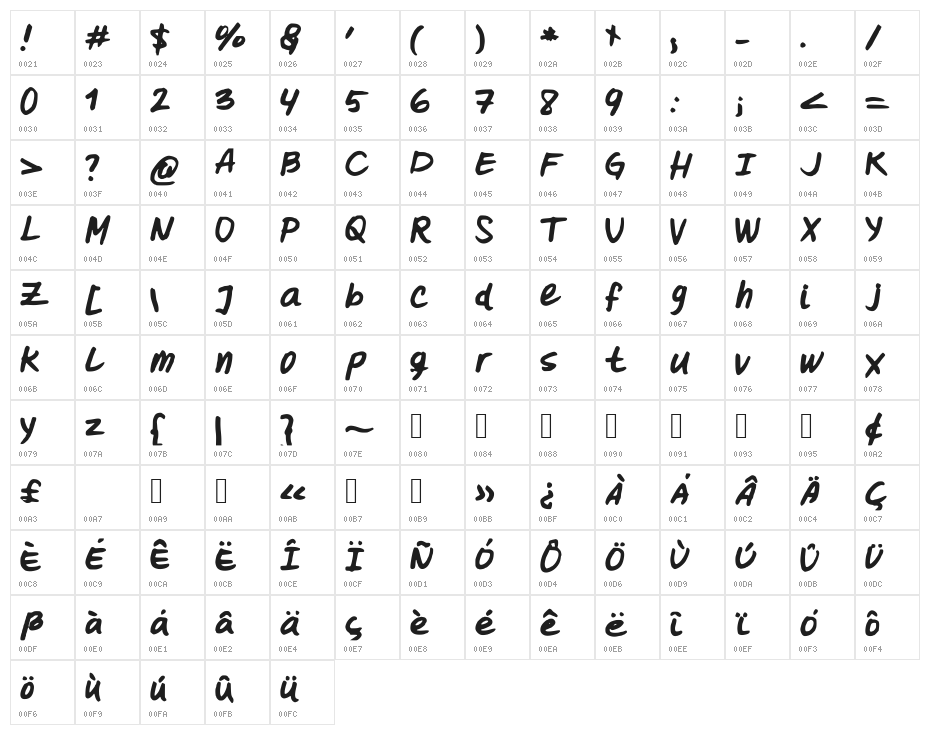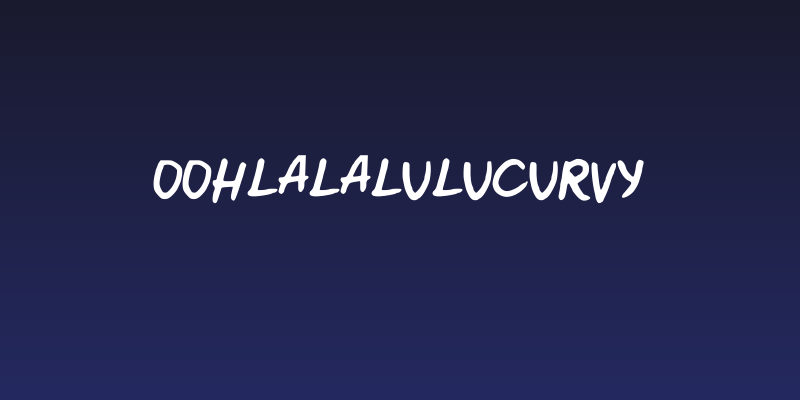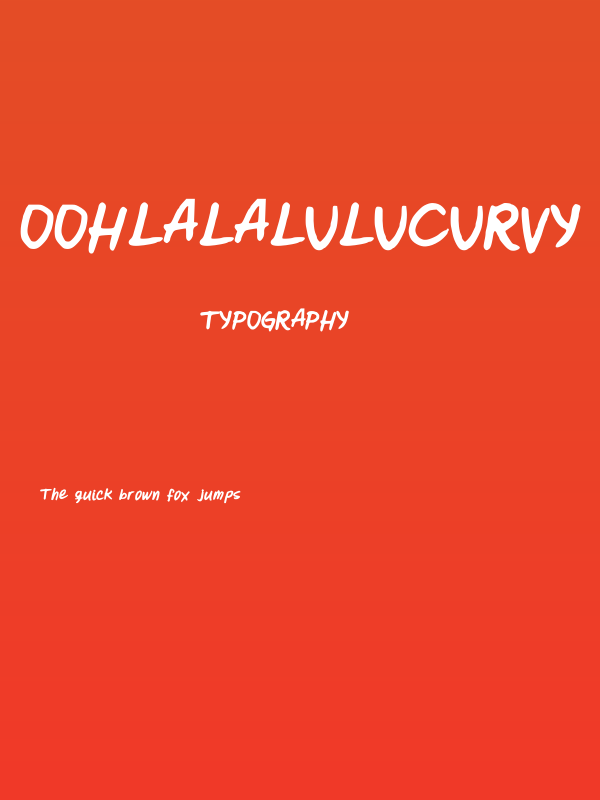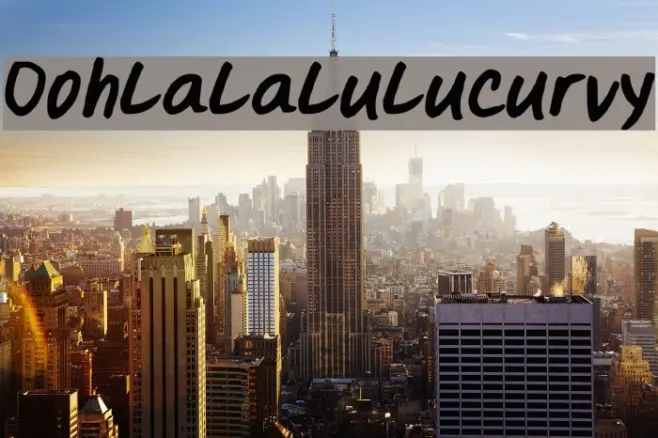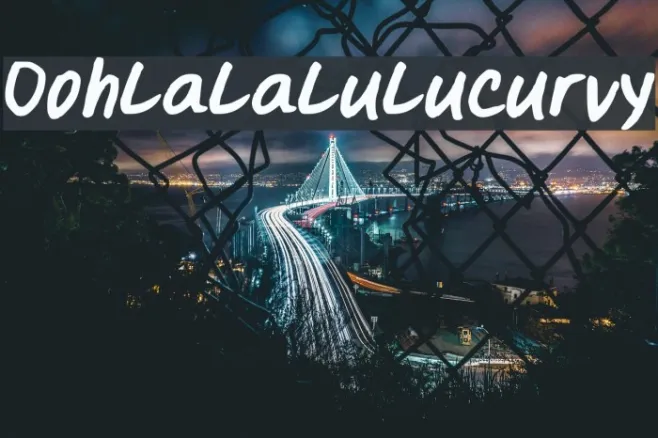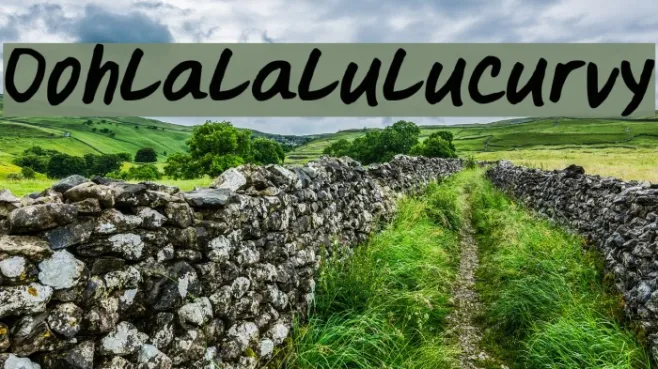
Oohlalalulucurvy Font
Oohlalalulucurvy Description
This font features a playful and energetic style, characterized by its bold and curvy letterforms. The strokes are thick and rounded, giving it a friendly and approachable appearance. The uppercase and lowercase letters maintain a consistent flow, with a slight slant that adds a dynamic feel. The numerals and special characters are equally bold, ensuring readability and consistency across all text. The overall design is reminiscent of casual handwriting, making it ideal for projects that require a personal touch.
| Use Case | Logos, Headlines, Informal Text |
| Proposed Projects | Ideal for greeting cards, playful branding, children's books, and casual invitations. |